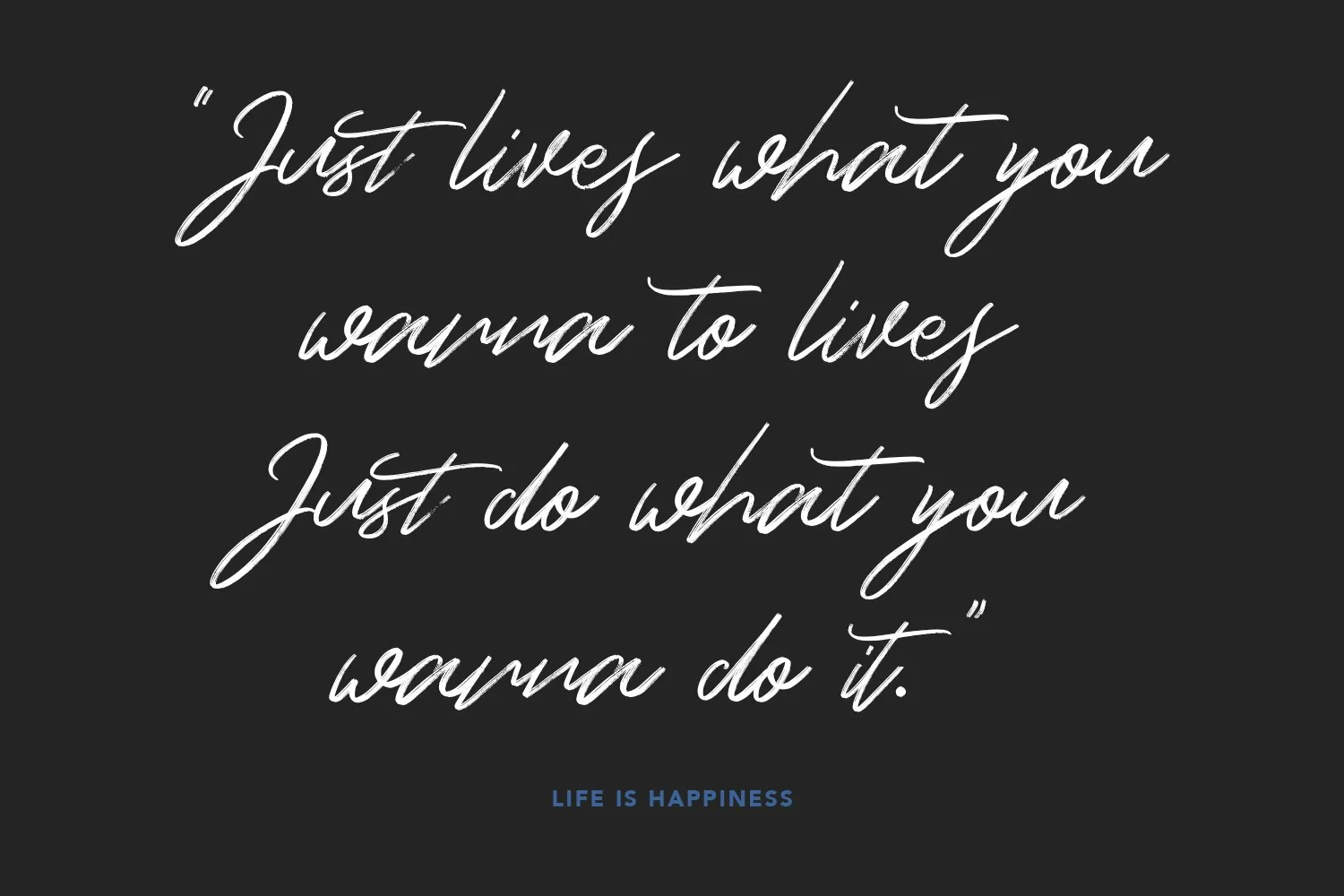
Give your designs an authentic handcrafted feel. "Macksay Display Brush Font Extra Swash" is perfectly suited to signature, stationery, logo, typography quotes, magazine or book cover, website header, clothing, branding, packaging design and more.